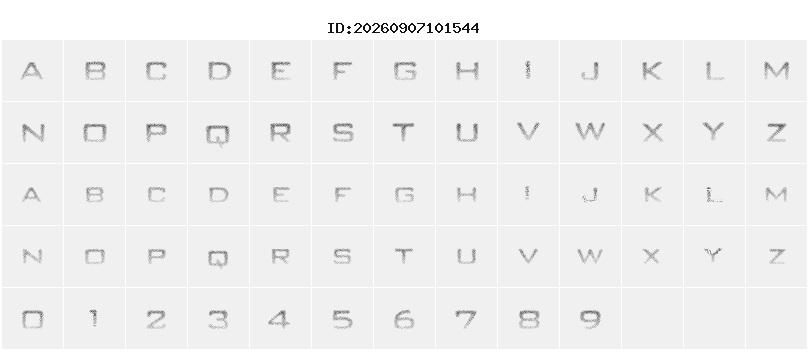
Unity Dances Preview
• Font Name: Unity Dances
• Full Font Name: Unity Dances
• Designer: S. John Ross
About Unity Dances.ttf
Unity Dances.ttf is a modern, elegant sans-serif font designed for ultimate readability and visual harmony. Perfect for branding, headlines, web design, and print materials.